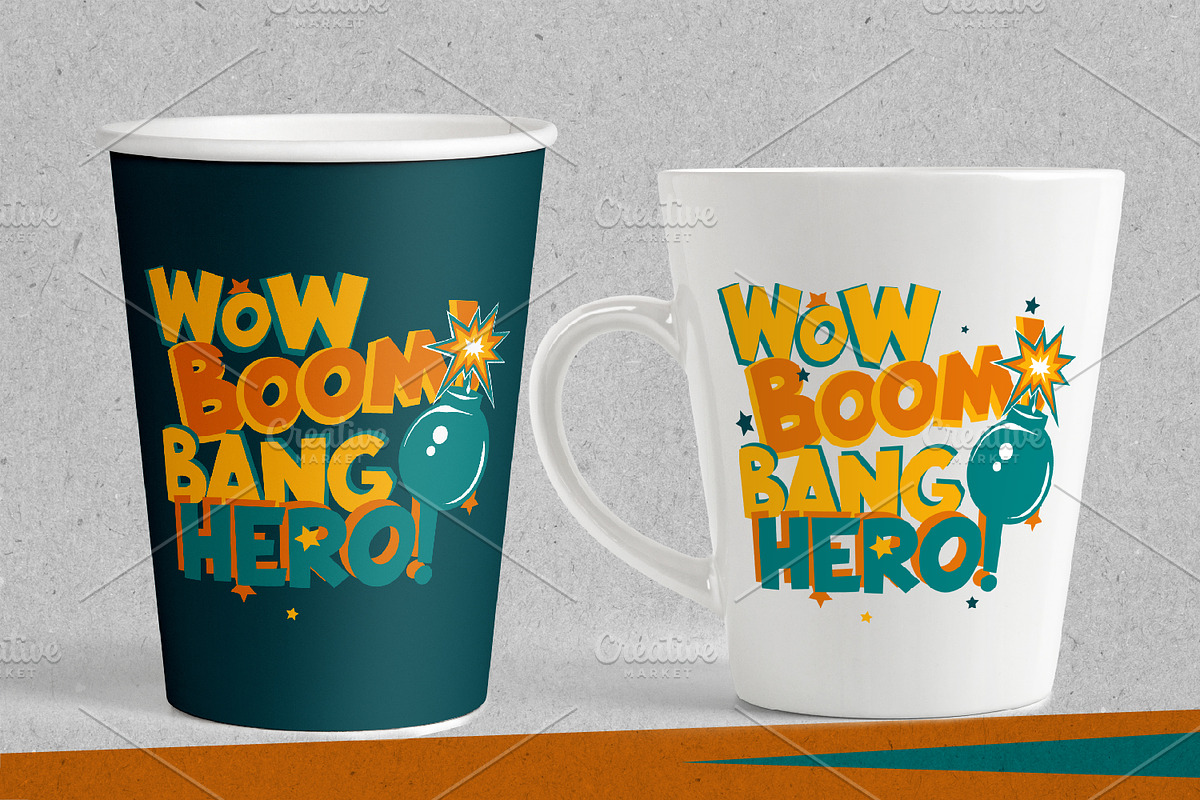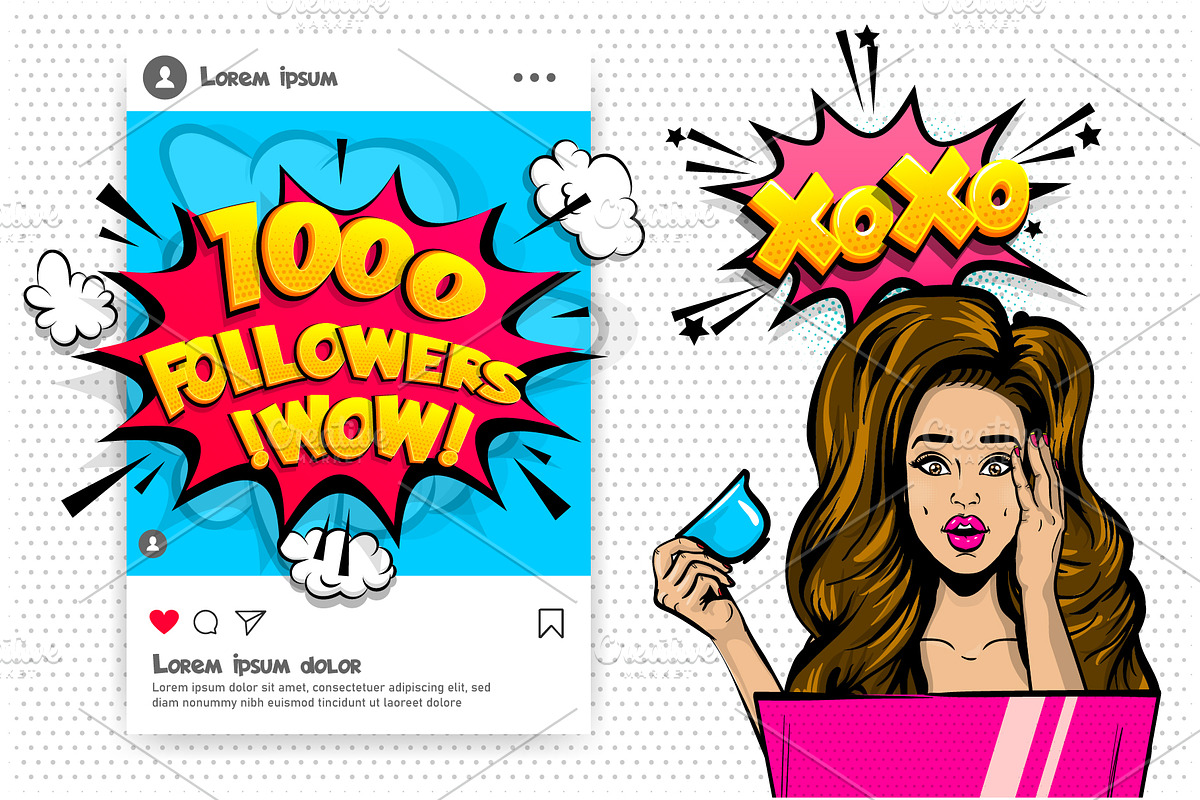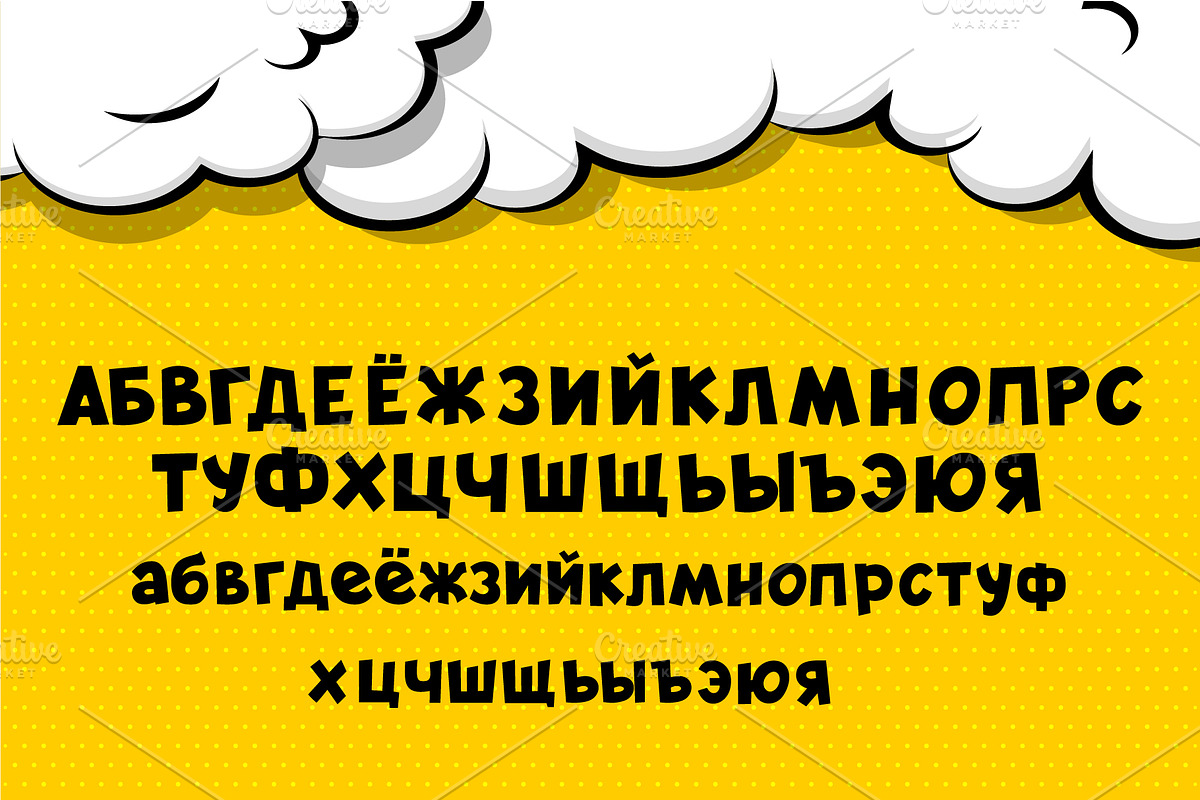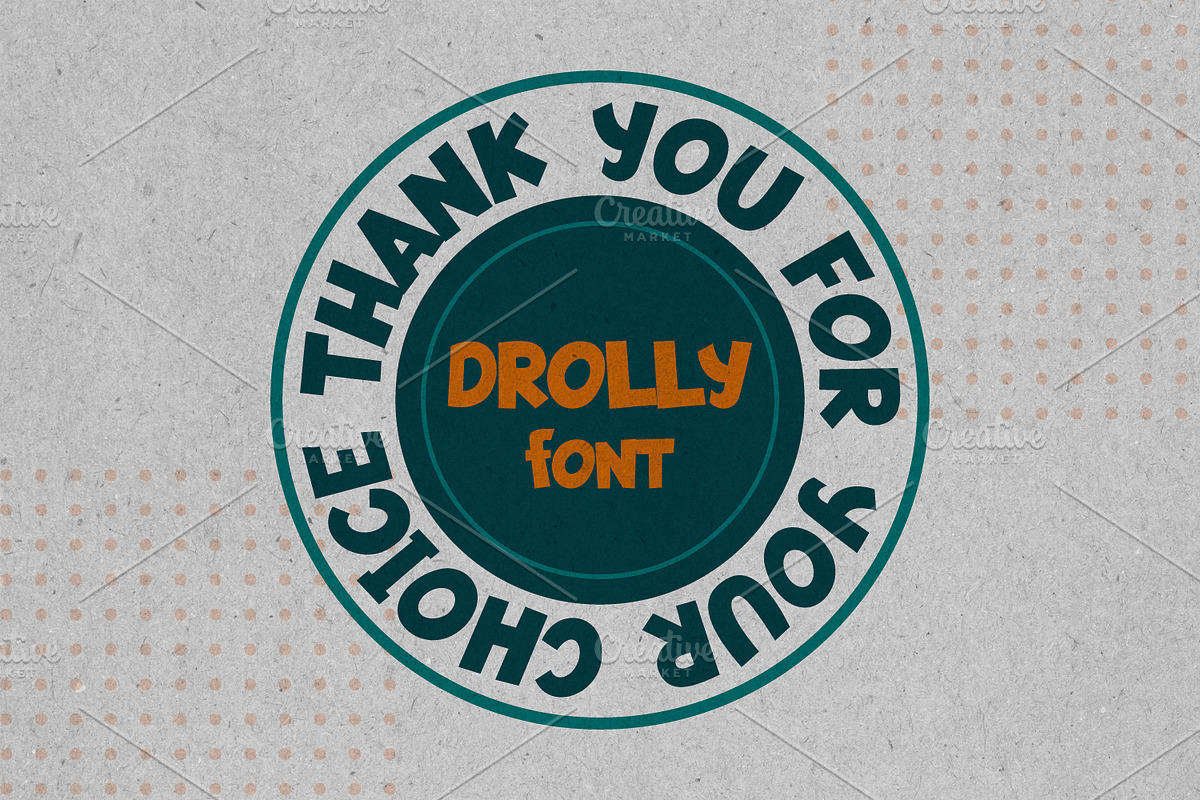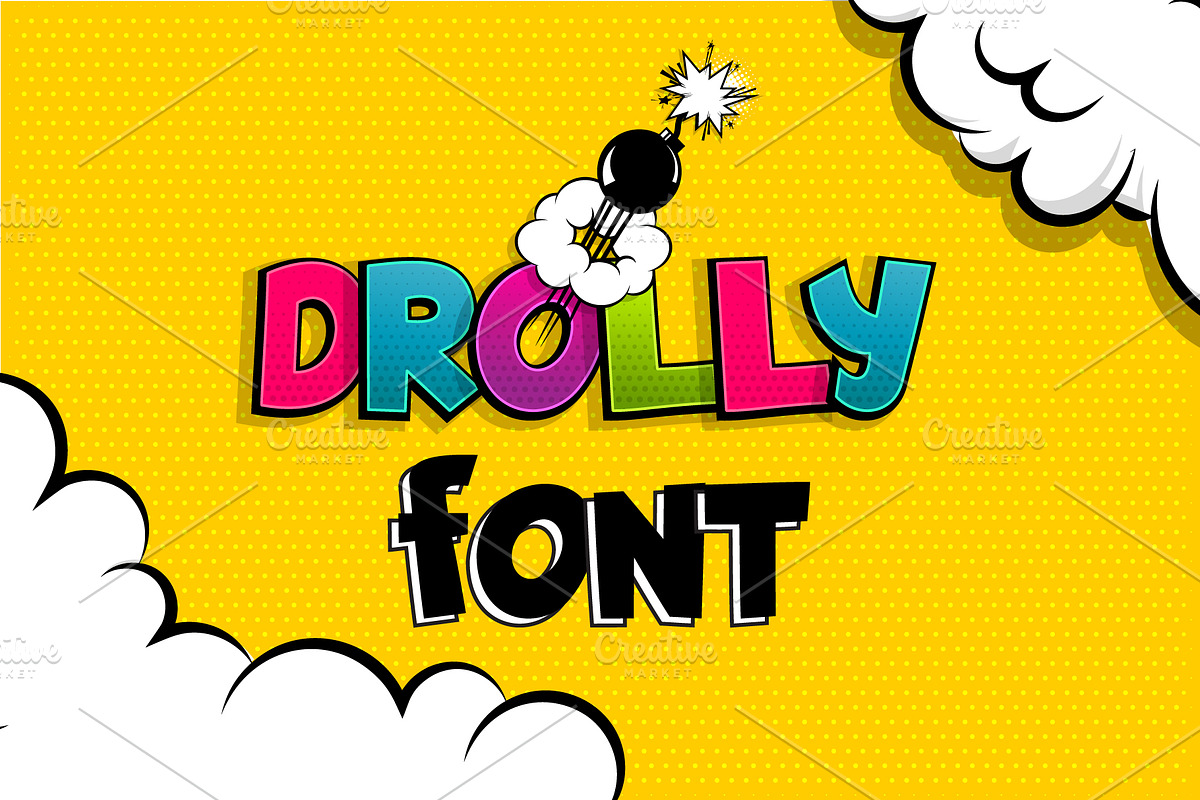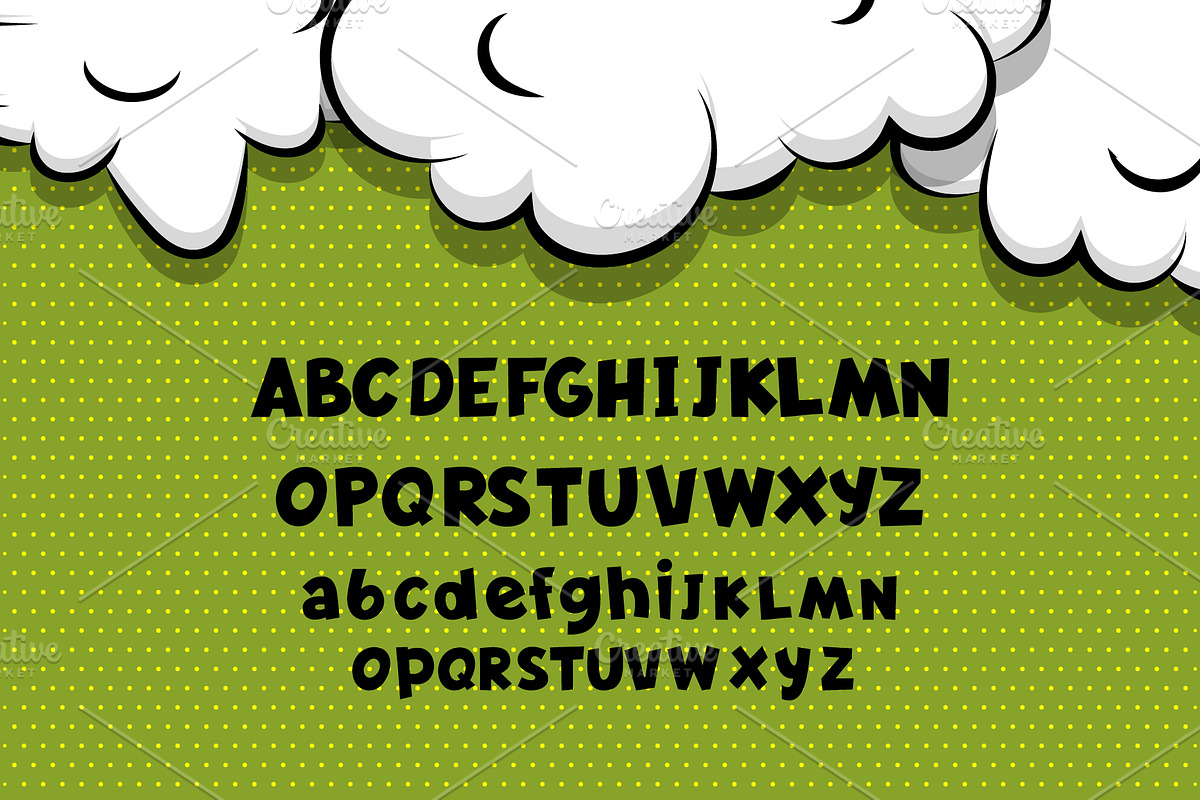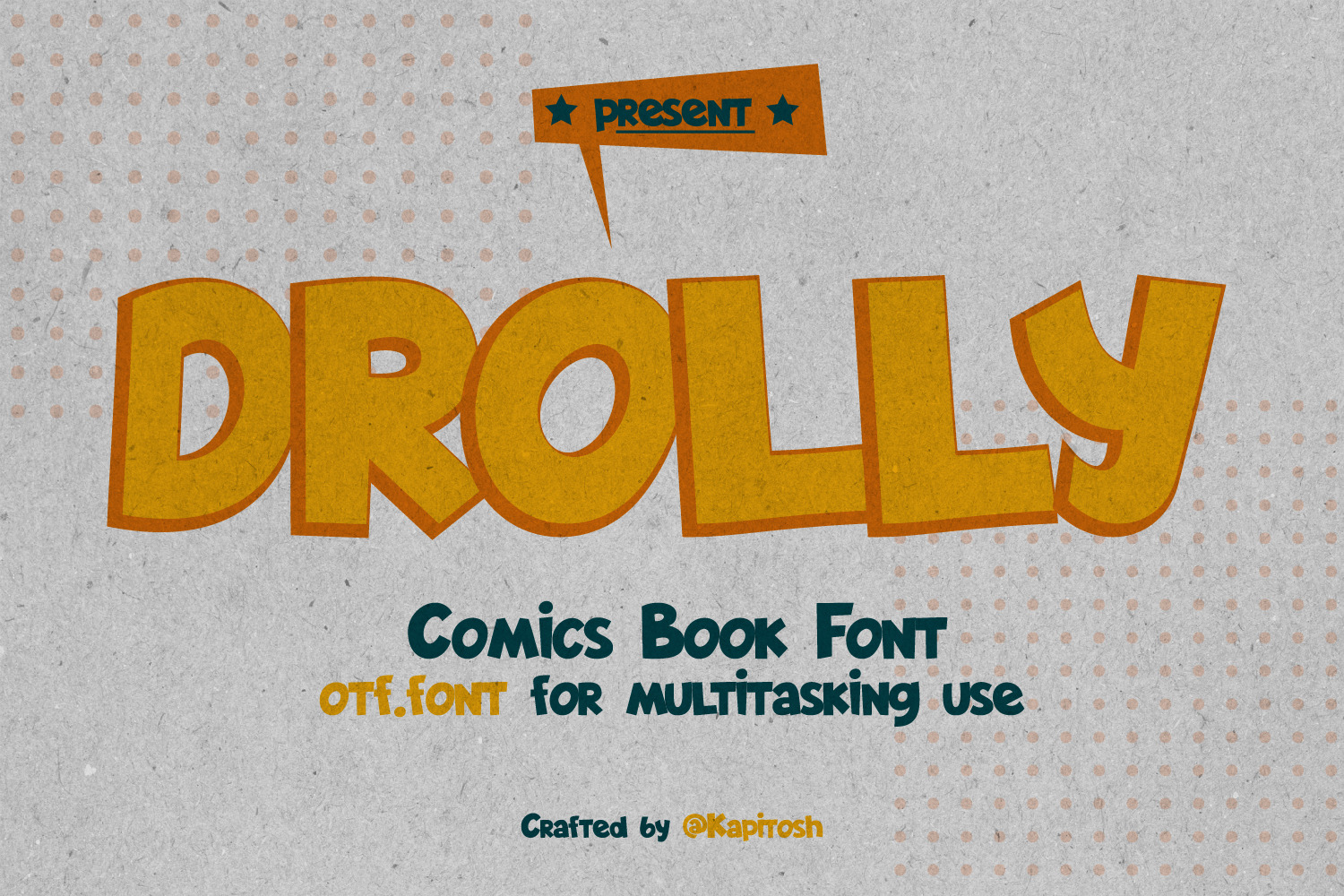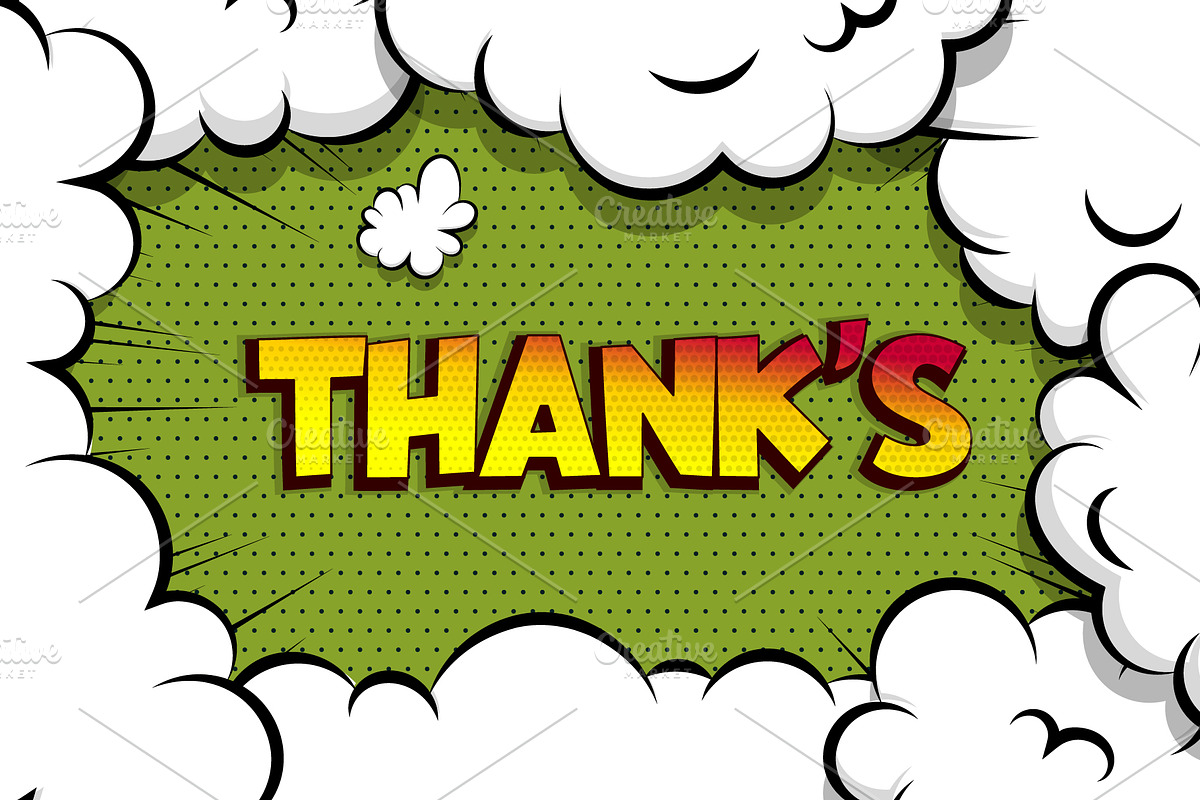
Drolly comics book funny font
Cartoon comic book font "Drolly" in latin and cyrillic alphabets.
Decorate youth design
- packaging design,
- handwritten cards,
- promo speech bubbles,
- advertise,
- greetings for various holidays
This bright handwritten font suitable for the decoration of print product.
"Drolly" - hand drawn script font containing upper apostrophe; lowercase characters, numerals, large range of punctuation and math unicode simbols. Russian and English text.